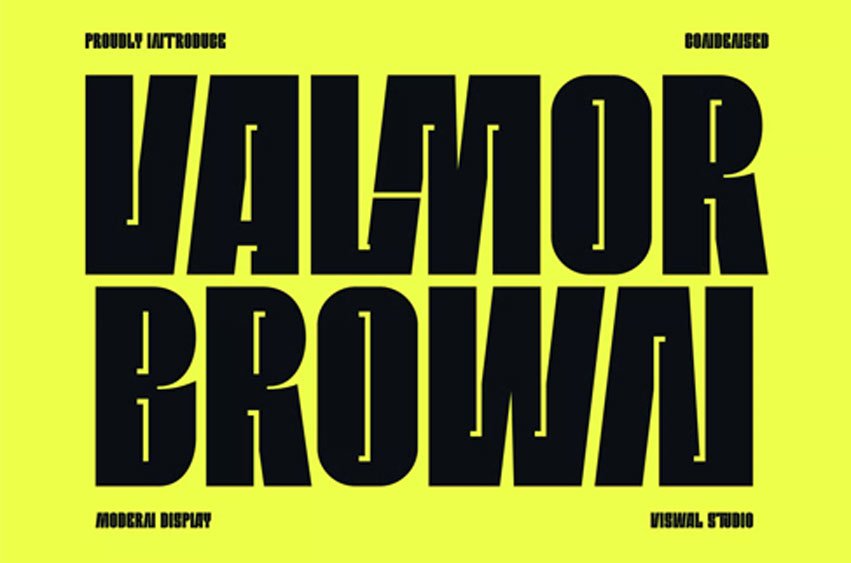
Valmor Brown Font
Valmor Brown Font Is A Strong Bold Condensed Font. Can Make It Easier To Convey The Message In Your Design. Font Is Suitable For Logo, Labels, Badge, Branding, Magazine, Poster, Title, Gigs, Covers And Etc. Our Fonts Have Uppercase & Lowercase, Numeral & Punctuation, And Opentype Features.